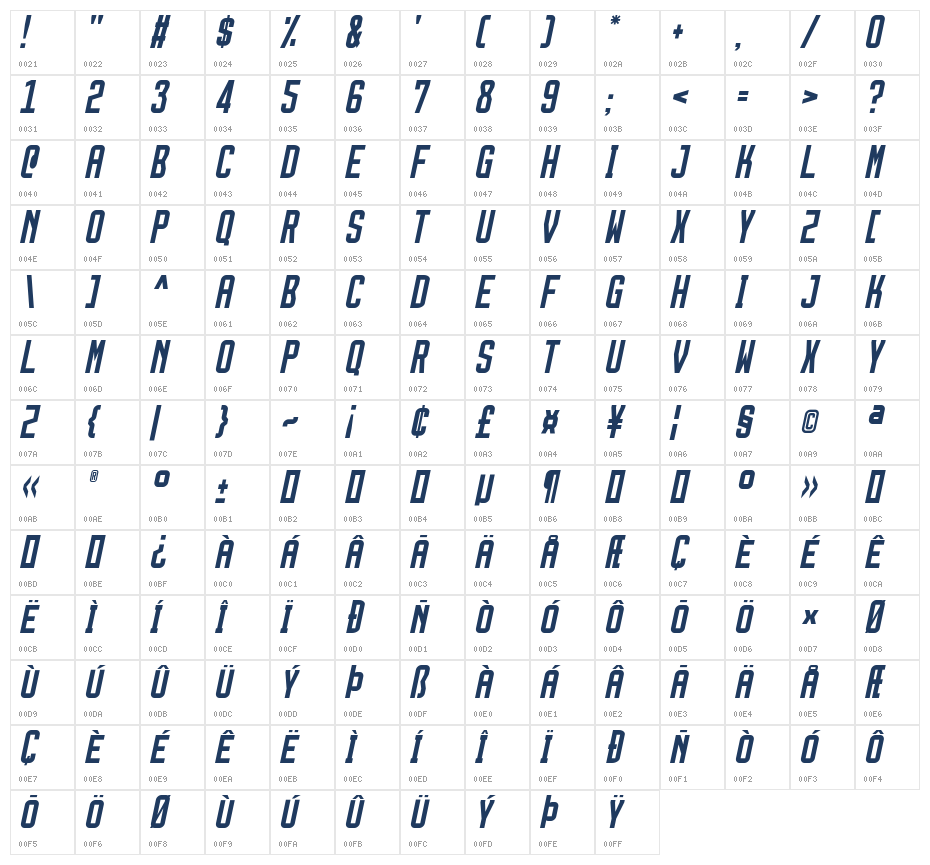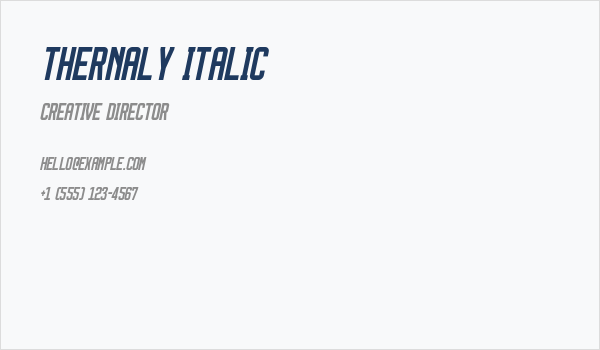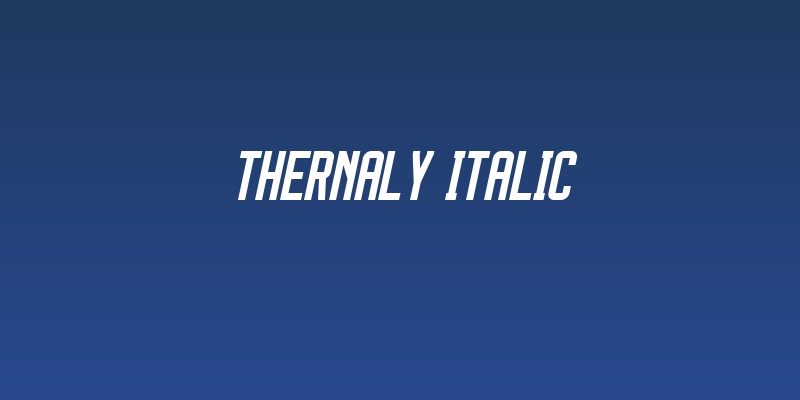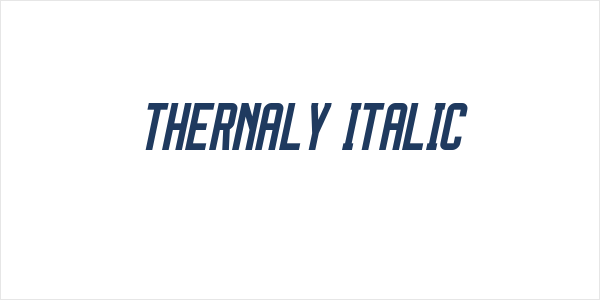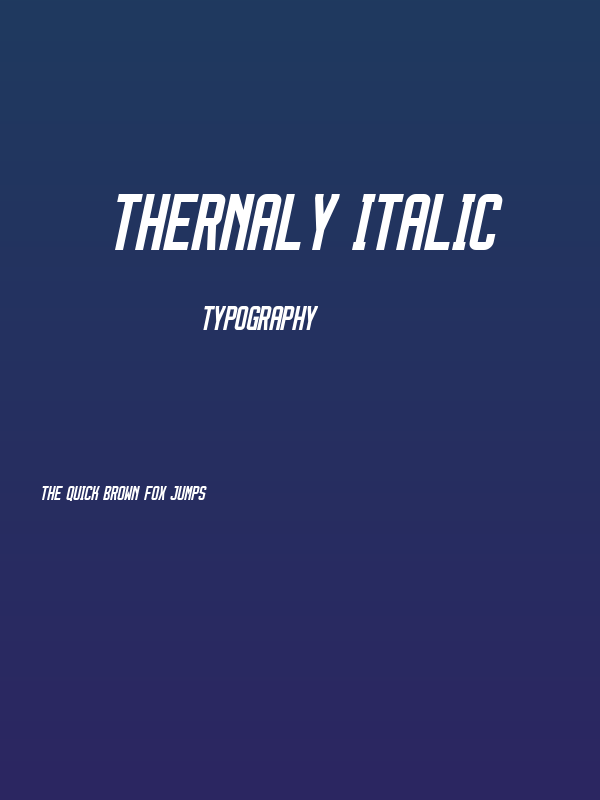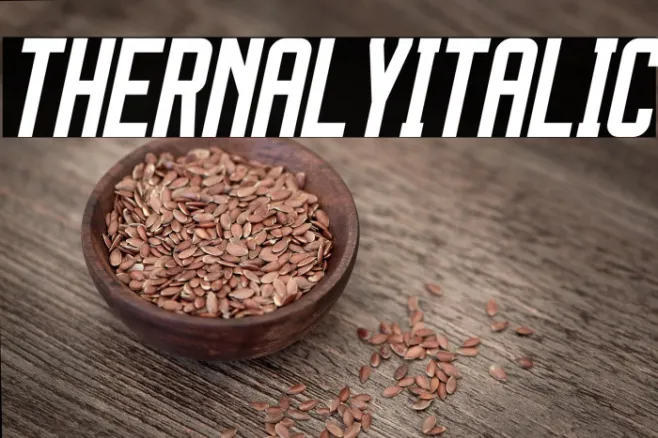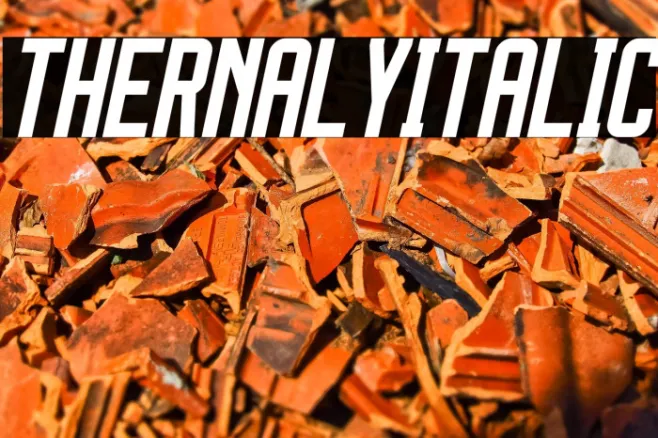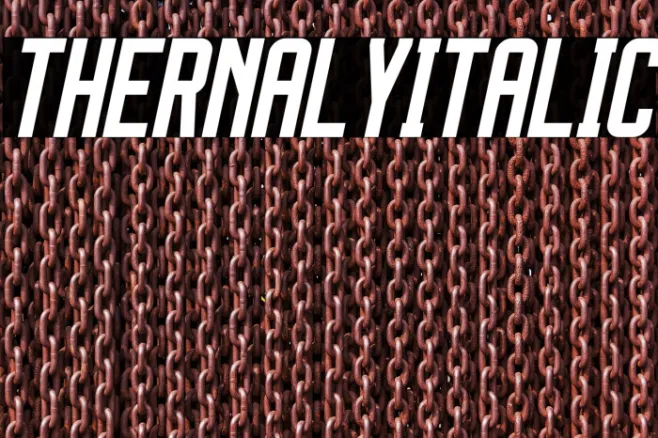
Thernaly Italic Font
Thernaly Italic Description
A bold, italic, sans-serif display font with a dynamic and modern style, characterized by slanted letterforms and consistent stroke weight.
| Overall Style | Modern, Dynamic, Bold |